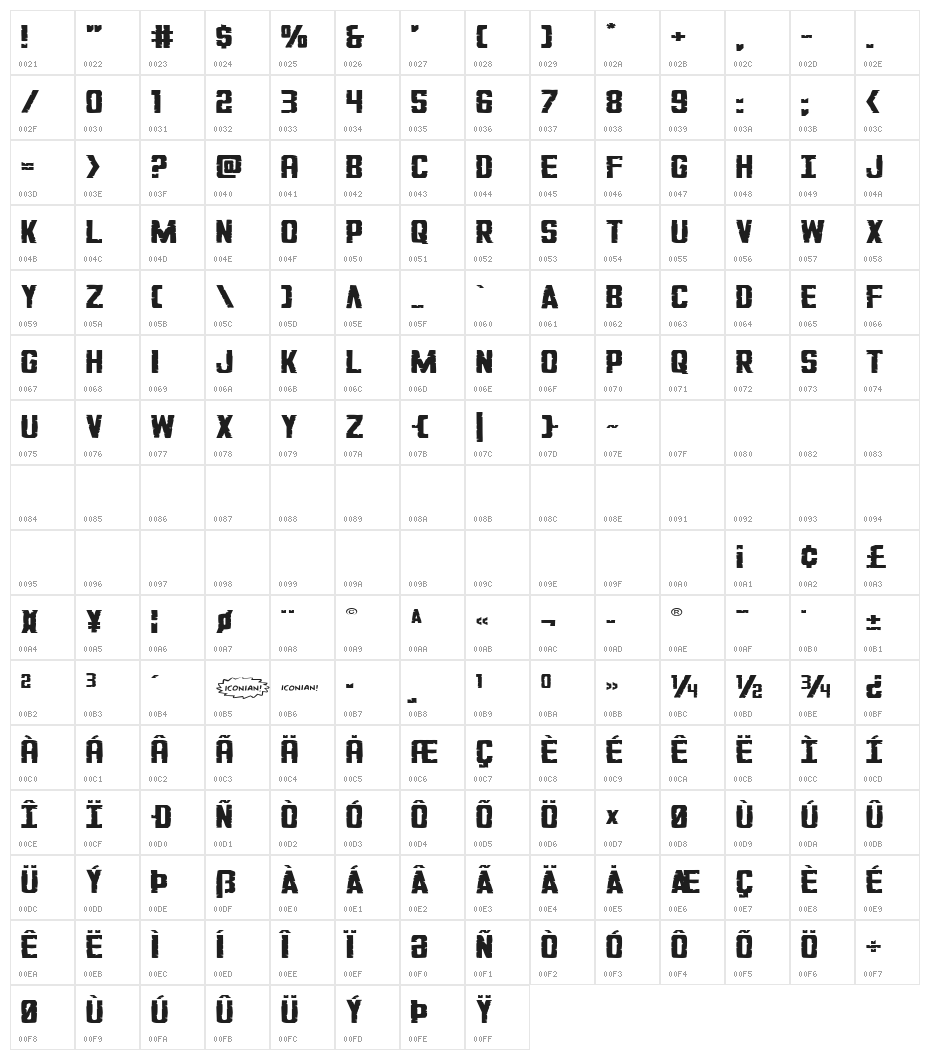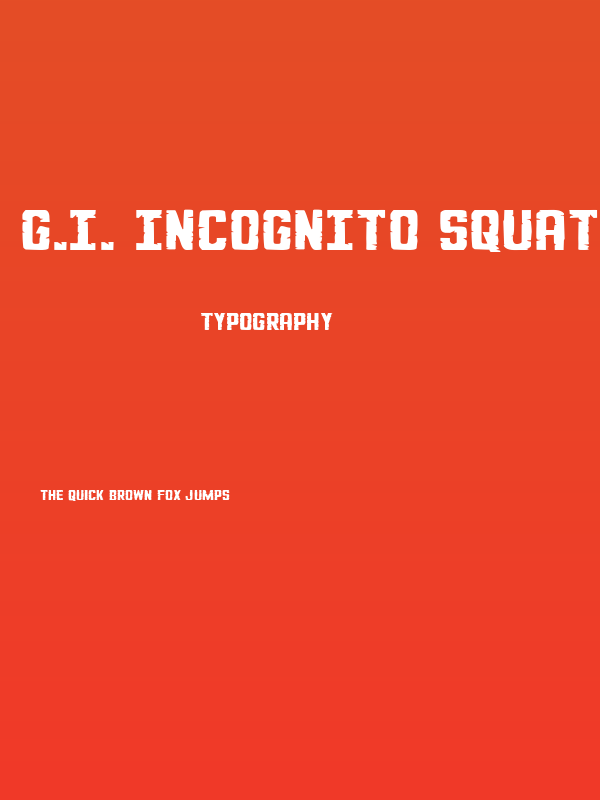
G.I. Incognito Squat Font
G.I. Incognito Squat Description
This font features a rugged, distressed style with a bold and impactful presence. The characters are designed with irregular edges and a textured appearance, giving them a worn, vintage feel. The uppercase letters are particularly striking, with a strong, commanding look that makes them ideal for attention-grabbing designs. The numbers and special characters maintain this distressed aesthetic, ensuring consistency across all elements. This font's unique style is perfect for projects that require a bold, edgy look, such as posters, album covers, or branding for alternative or grunge-themed products.
| Proposed Projects | Ideal for posters, album covers, branding for alternative products, or any design needing an edgy, bold aesthetic. |